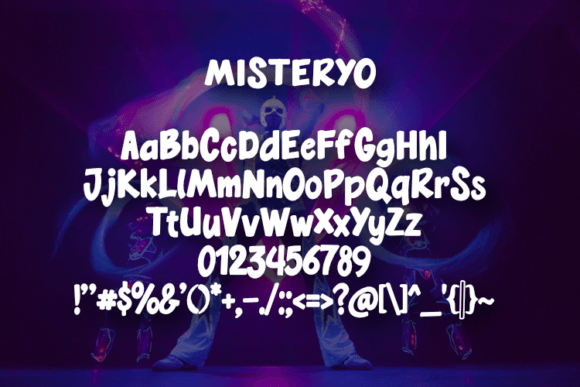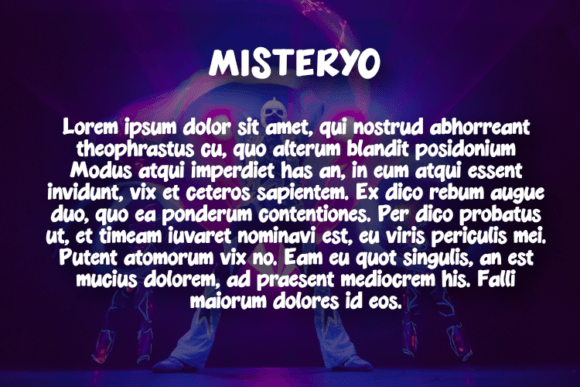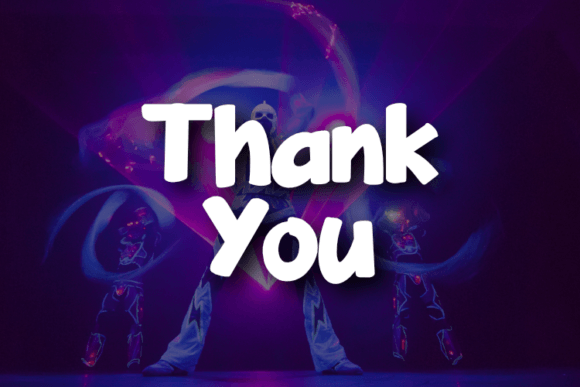
Unleashing Your Creative Potential with Misteryo Font
Have you ever stared at a blank canvas, waiting for the perfect font to spark your next design project? That moment of inspiration is what drives designers like you to create something truly remarkable. As you embark on your next creative adventure, we’d like to introduce you to a game-changing design resource that will elevate your work to the next level.
Meet the Misteryo Font, a versatile and high-quality font that’s designed to bring an intriguing edge to your t-shirt designs, product labels, and beyond. With its unique blend of style and functionality, Misteryo Font is the perfect addition to any designer’s toolkit. Whether you’re working on a freelance project or collaborating with a team, this font is sure to be a valuable asset in your creative journey.
Key Features of Misteryo Font
- High-quality, professional font design suitable for various creative projects.
- Features a unique, mysterious aesthetic, making it perfect for projects requiring an air of intrigue.
Honest Review: Misteryo Font
I recently stumbled upon the Misteryo Font and was immediately drawn to its unique, mysterious vibe. As a designer, I’m always on the lookout for high-quality design resources that can elevate my creative projects.
What works well about the Misteryo Font is its versatility. It’s perfect for anything from spooky Halloween-themed designs to mystical, mystical-inspired artwork. The font’s transparent background makes it easy to use with any background image or color, giving you complete control over your design.
Here are some of the font’s key features:
- High-quality, detailed design
- Perfect for creative projects that require a mysterious or mystical vibe
- Transparent background for seamless integration with backgrounds
However, I do have a few criticisms. The font can be quite complex and may be difficult for some users to customize, especially those who are new to font design. Additionally, the font’s mystery-inspired design may not be suitable for all types of projects, such as business or corporate designs.
Overall, I would recommend the Misteryo Font to designers who are looking for a unique and high-quality design resource for their creative projects. While it may have some limitations, its versatility and mysterious vibe make it a great addition to any design arsenal.
Tips for Getting the Most Out of Misteryo Font
Use Misteryo Font to add a touch of sophistication to your designs. Experiment with different font sizes and colors to create a unique look. You can also use it in combination with other design elements to create a visually appealing design.
Common Use Cases for Misteryo Font
Misteryo Font is ideal for use in wedding invitations, business cards, and other creative projects that require a touch of elegance. It’s also great for use in digital design, such as social media graphics and website headers.